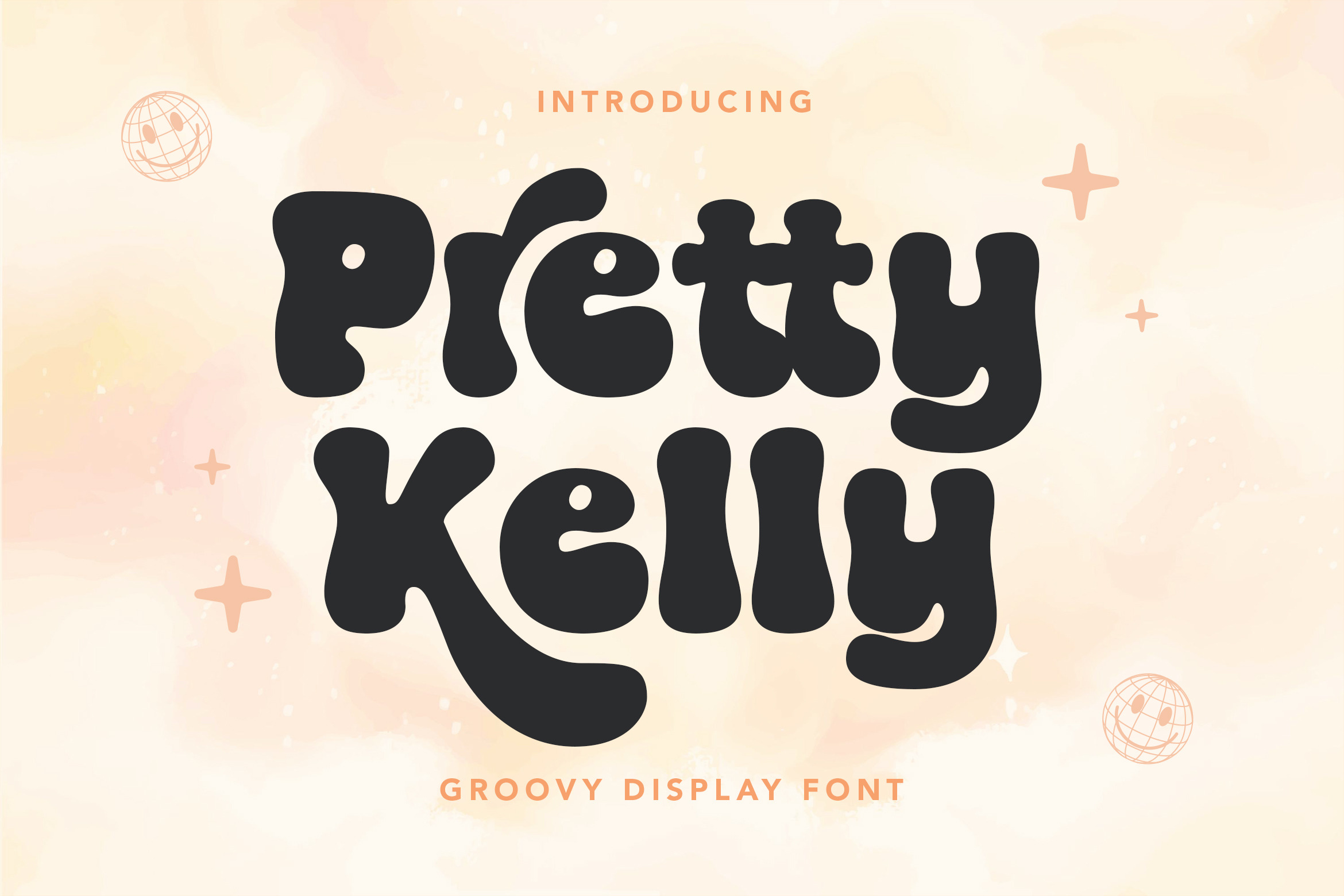
Pretty Kelly - Groovy Display font
Pretty Kelly Font
Pretty Kelly font is a cute and fun font. This font I created has been very widely used this year & is very versatile, it goes well with a variety of designs, elevating them to the highest level. Add this font to your favorite creative ideas and see the results!